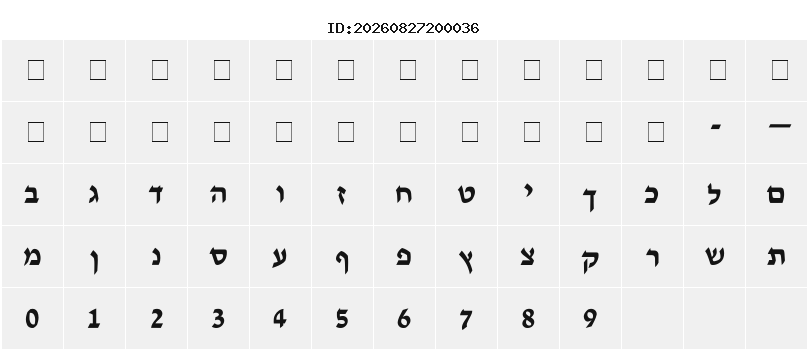
Tzipporah Preview
• Font Name: Tzipporah
• Full Font Name: Tzipporah
• PostScript Name: Tzipporah
Tzipporah.ttf is a modern, elegant sans-serif font designed for ultimate readability and visual harmony. Perfect for branding, headlines, web design, and print materials.